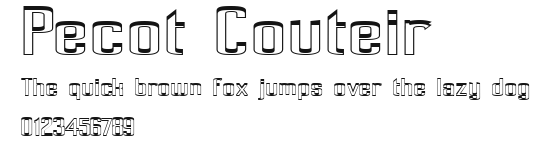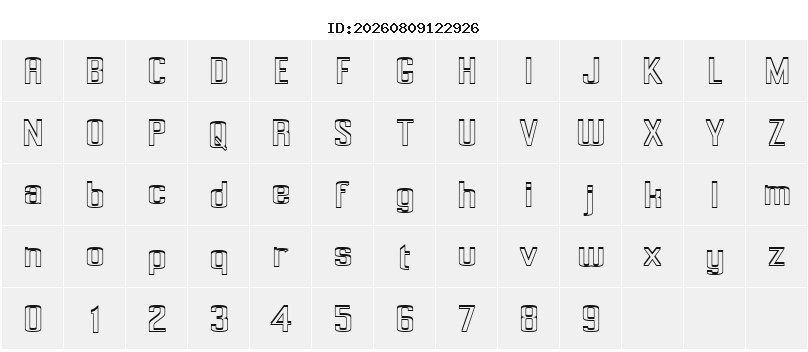
About Pecot Couteir.ttf
Pecot Couteir.ttf is a modern, elegant sans-serif font designed for ultimate readability and visual harmony. Perfect for branding, headlines, web design, and print materials.